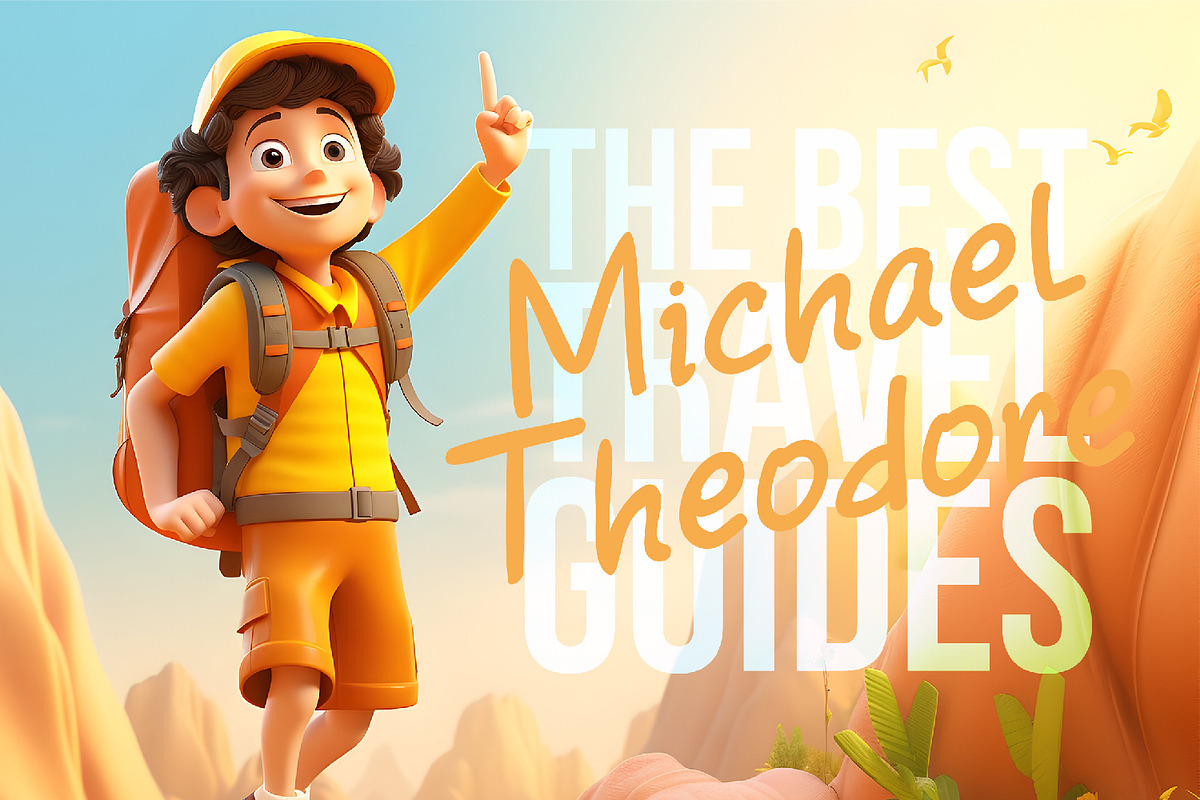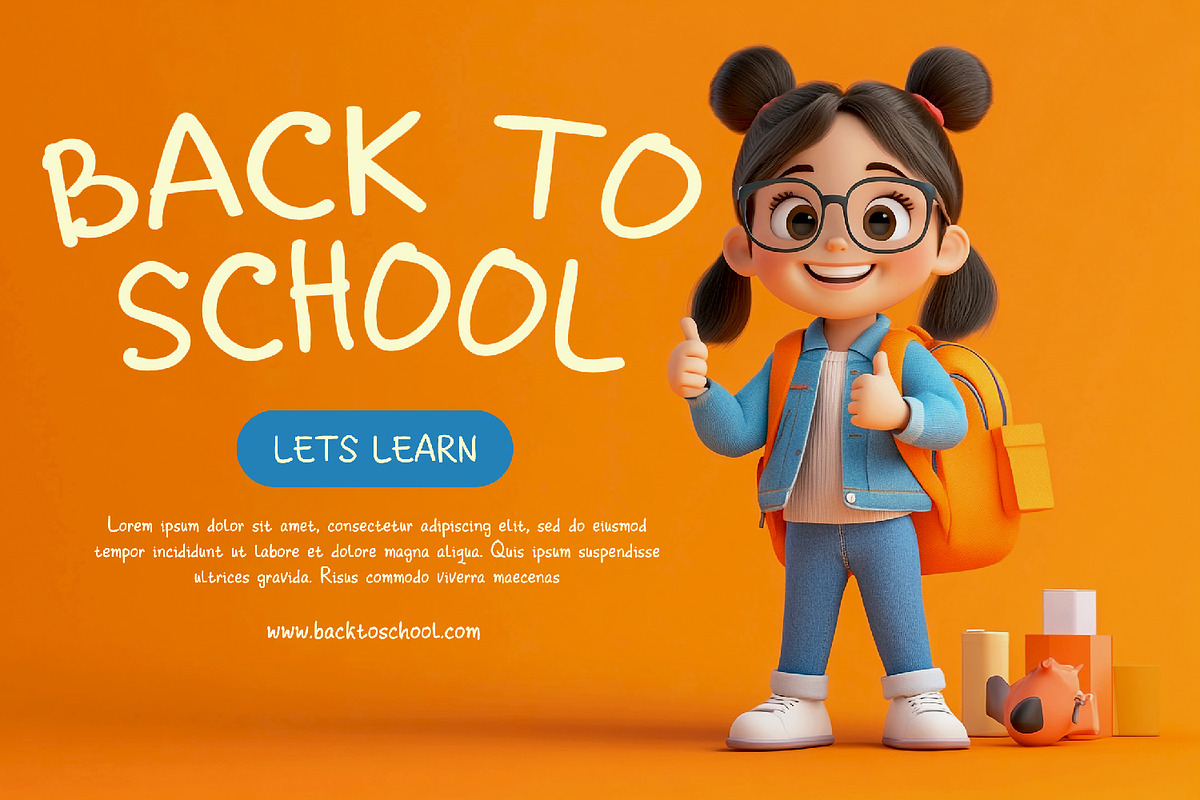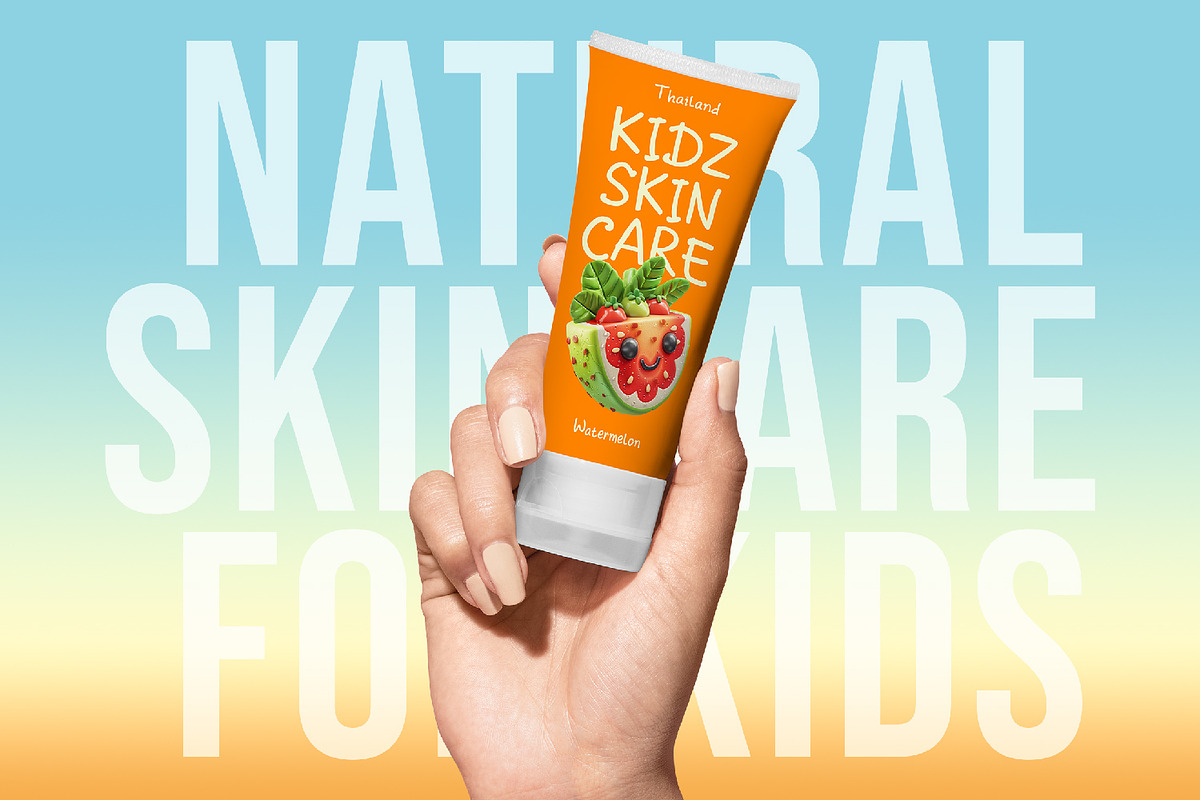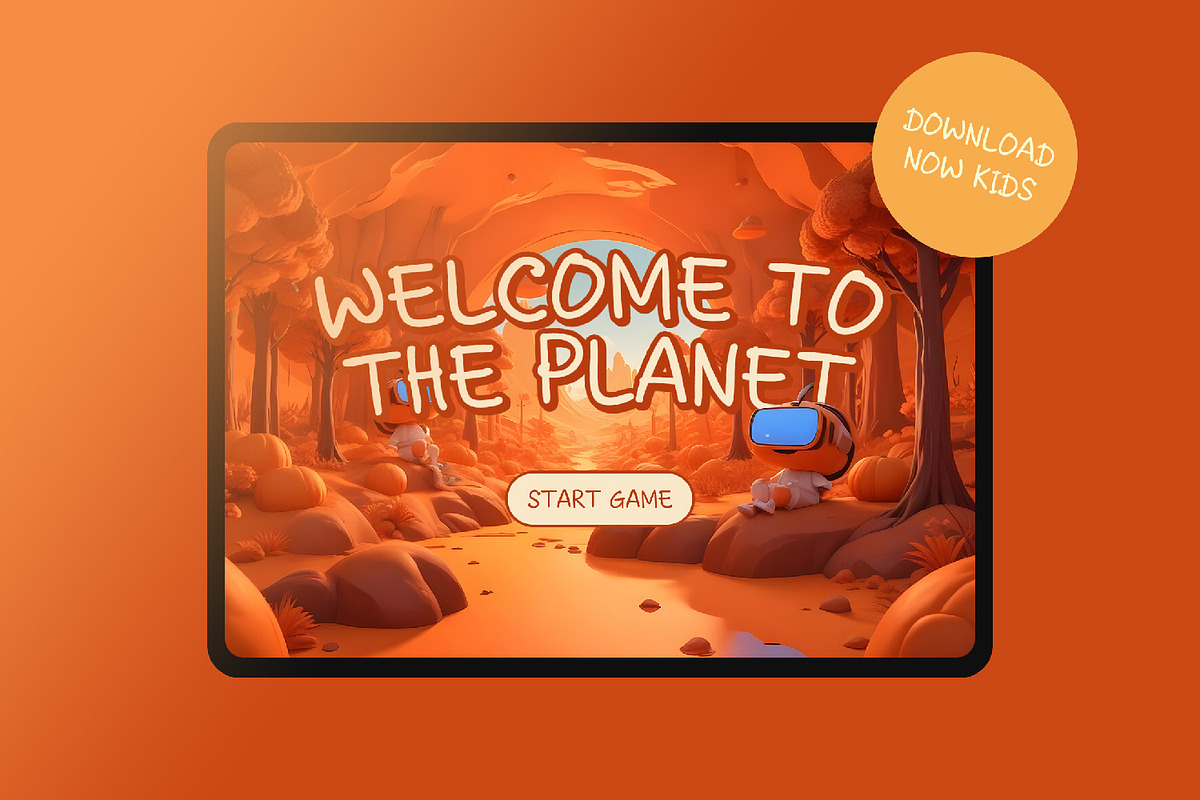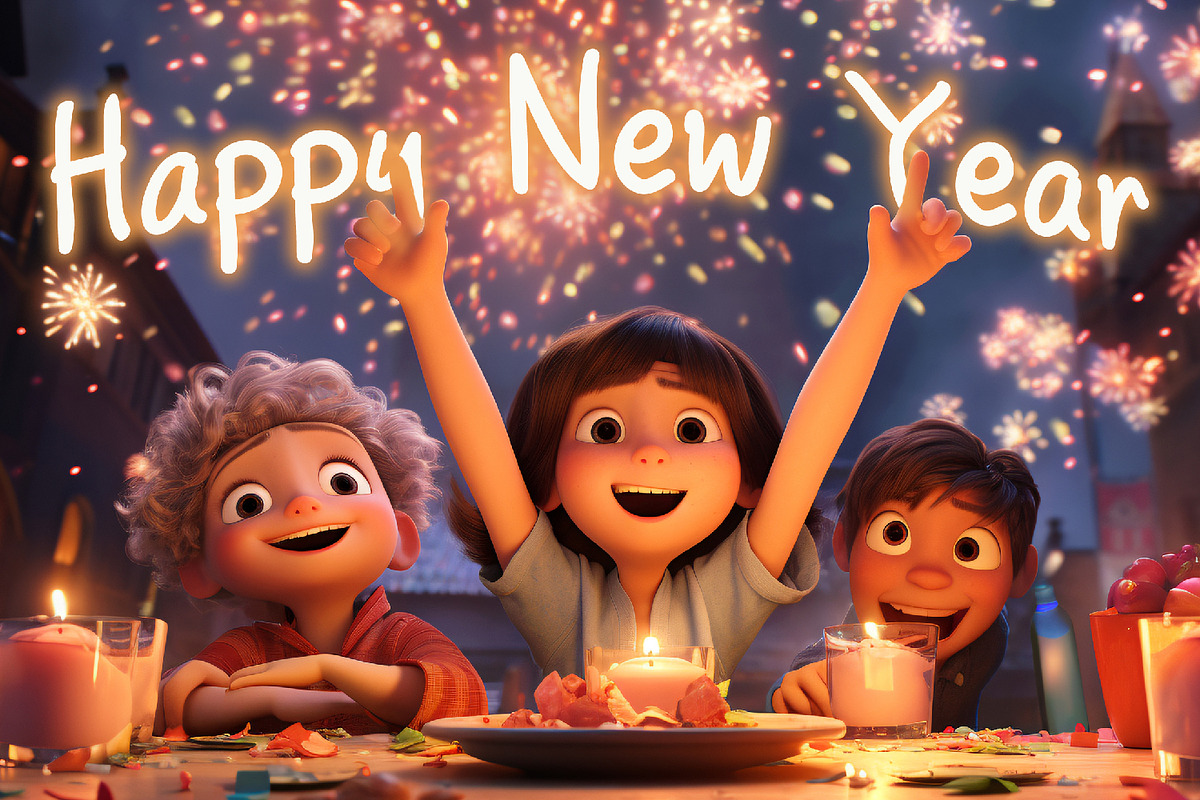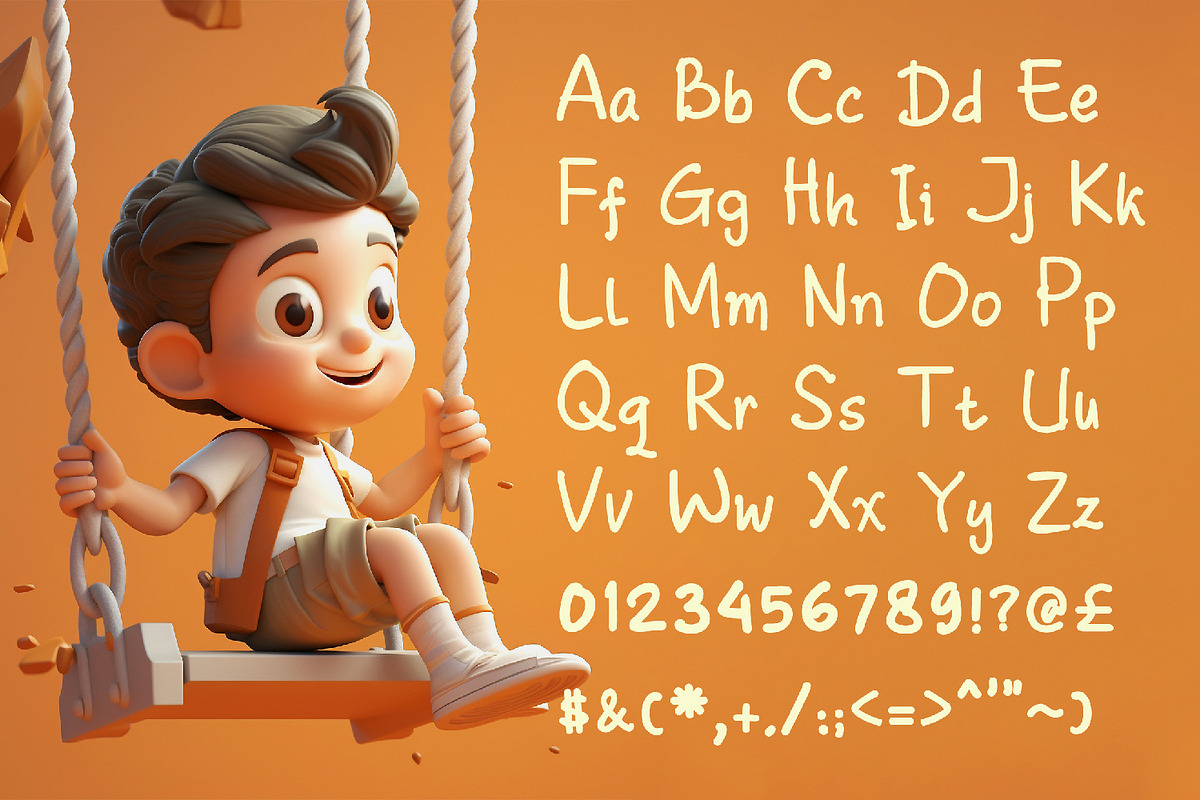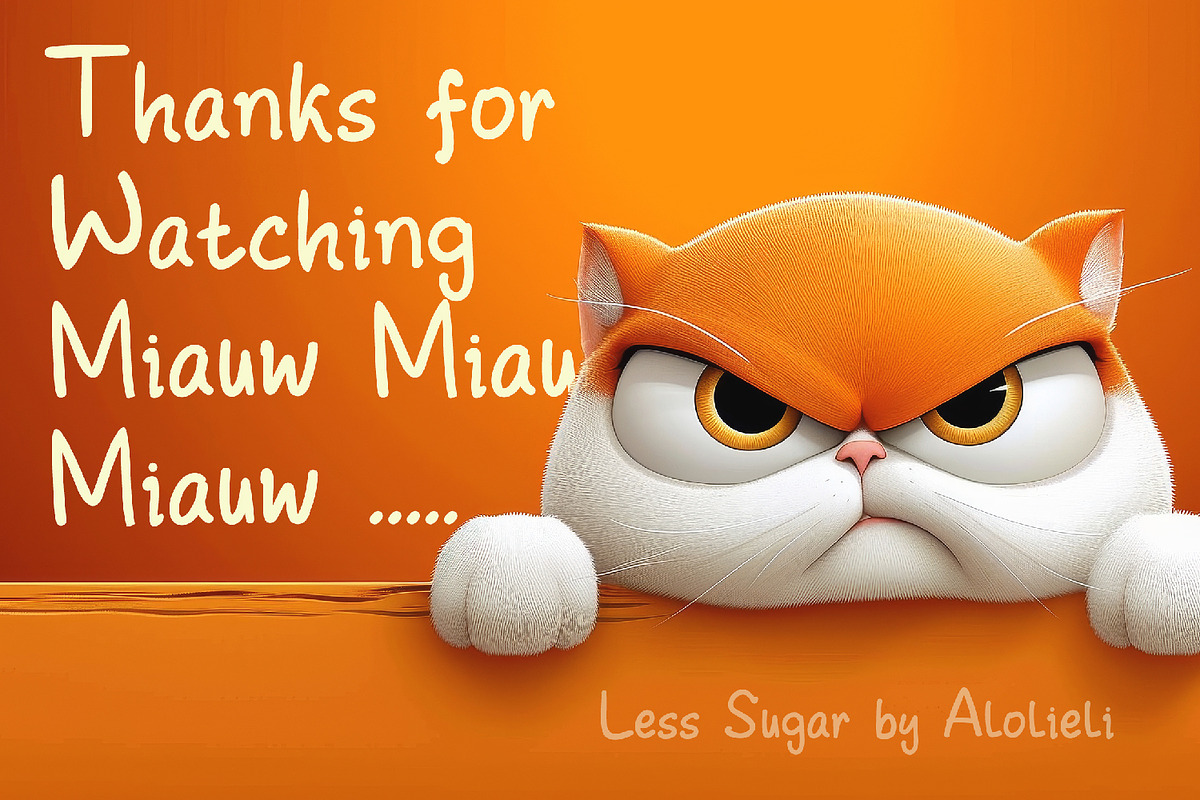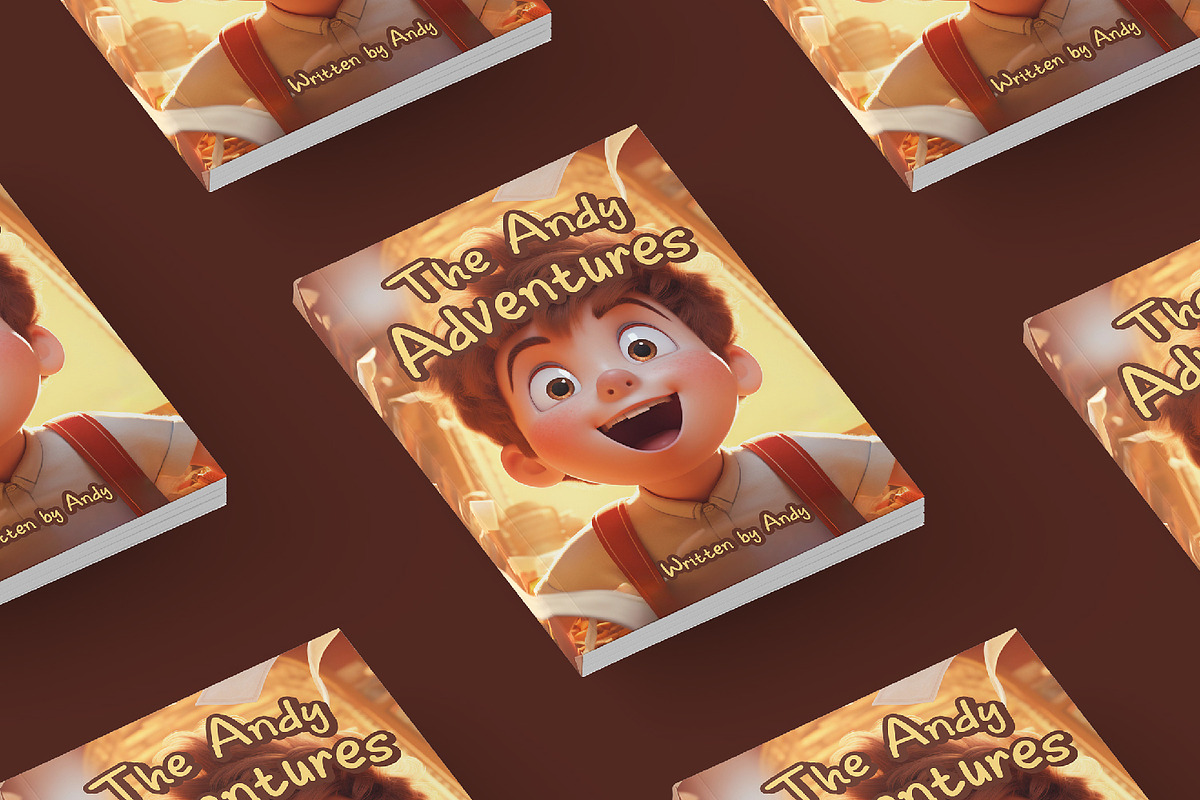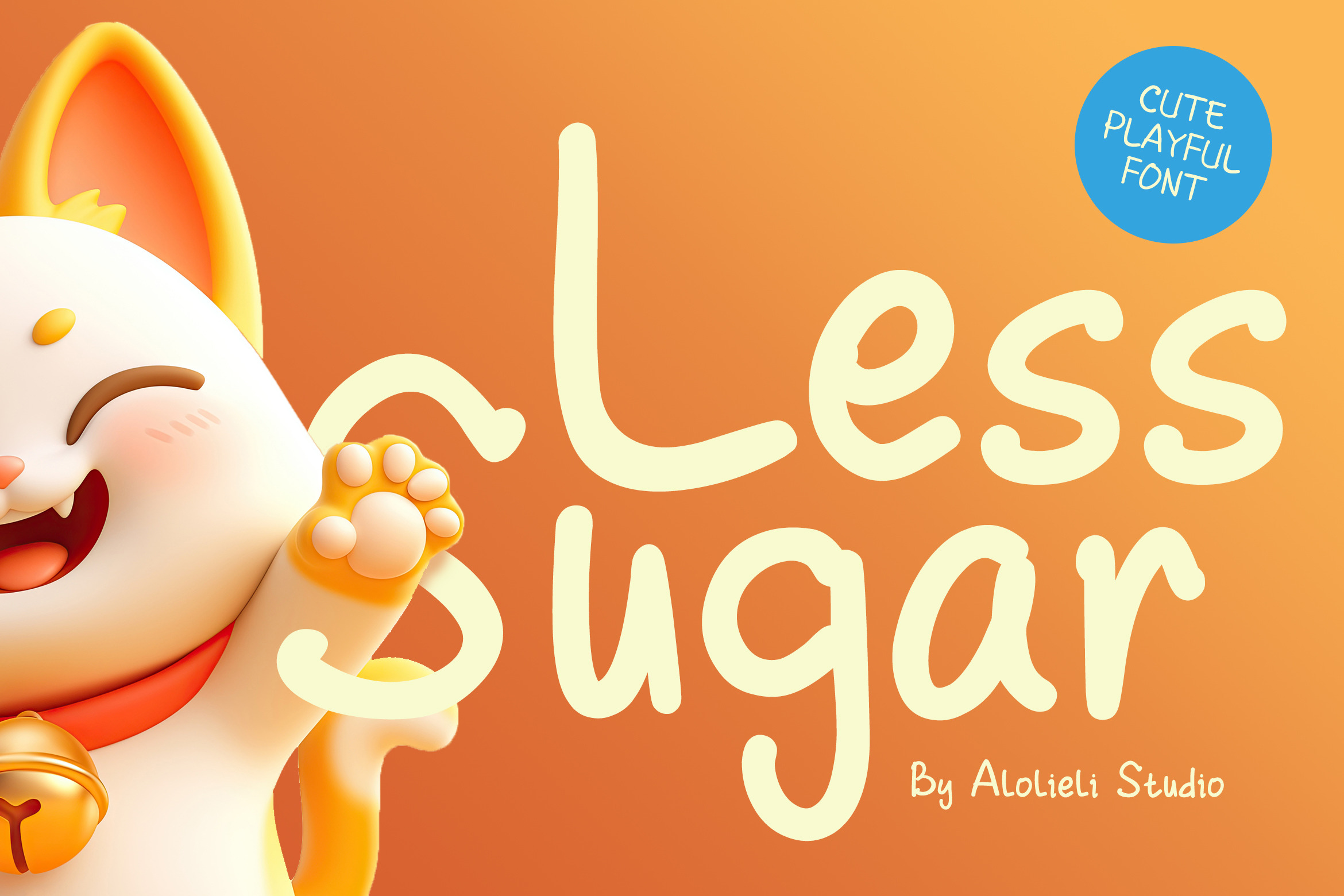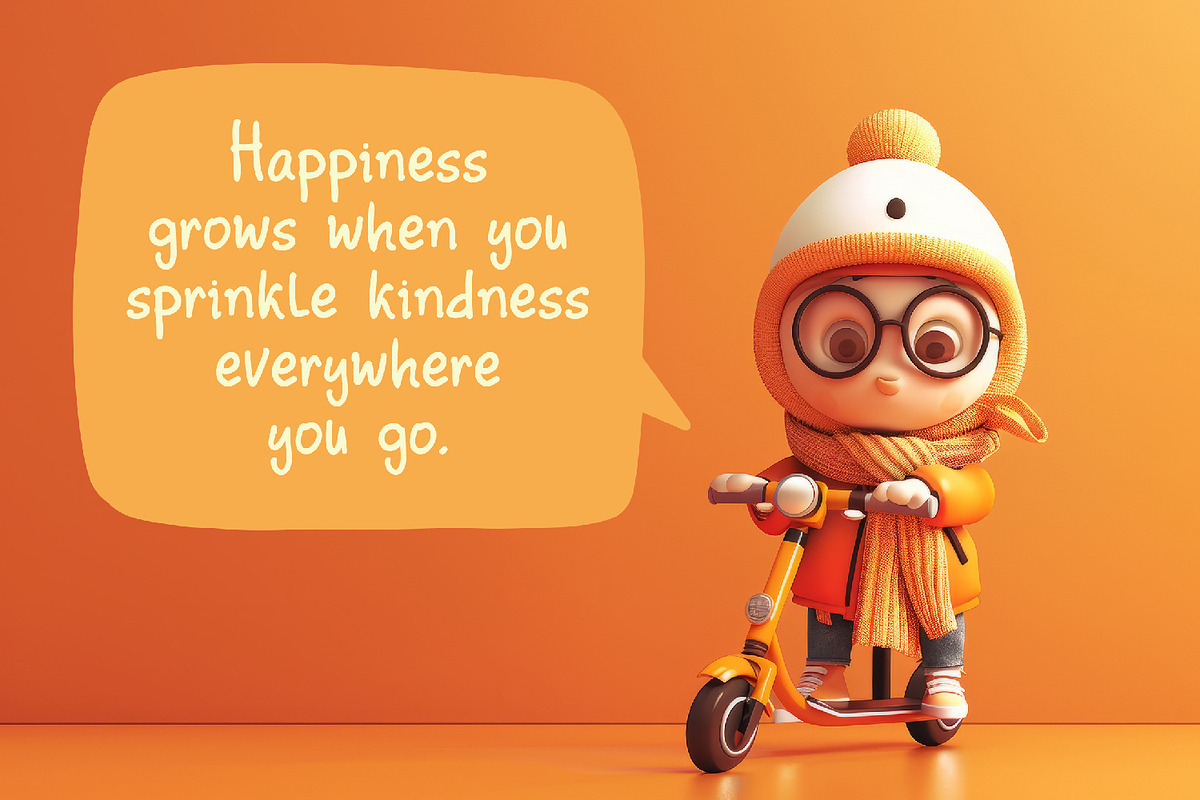
Less Sugar - Cute Playful Font
Introduce a sprinkle of sweetness to your designs with Less Sugar, a cute and playful font crafted to bring joy and warmth to any project. This rounded, friendly typeface is perfect for children’s books, playful branding, social media graphics, and fun packaging designs. Its smooth, hand-drawn feel adds a personal, whimsical touch that’s sure to make your text pop and bring a smile. Easy to read and versatile, Less Sugar is your go-to font for any project that needs a fun and approachable vibe.
- Perfect for children’s projects, branding, and social media
- Smooth, rounded characters for a friendly appearance
- Works beautifully on both digital and print designs